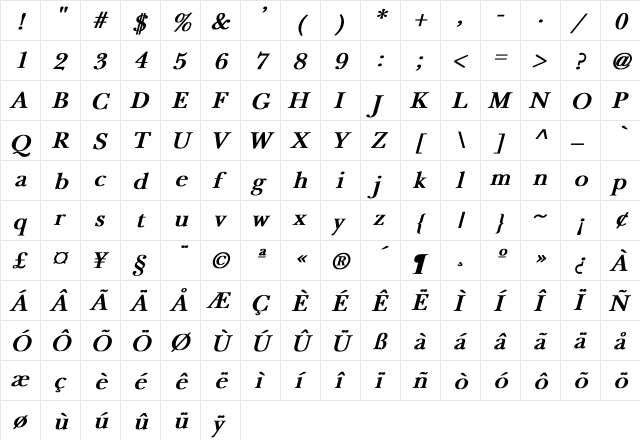
Bobson Bold Italic Regular
Design Context for Bobson Bold Italic Typeface
Bobson Bold Italic offers clean, dependable letterforms without strong stylistic allegiance, making it a practical choice for designers who need flexibility. The dynamic lean of this cut emphasises speed and emphasis in any layout. Its bold stroke weight gives it real presence on the page.
Pro Tip: Try Bobson Bold Italic for annotation and caption copy alongside an upright companion — the contrast in angle creates a dynamic but ordered typographic system.